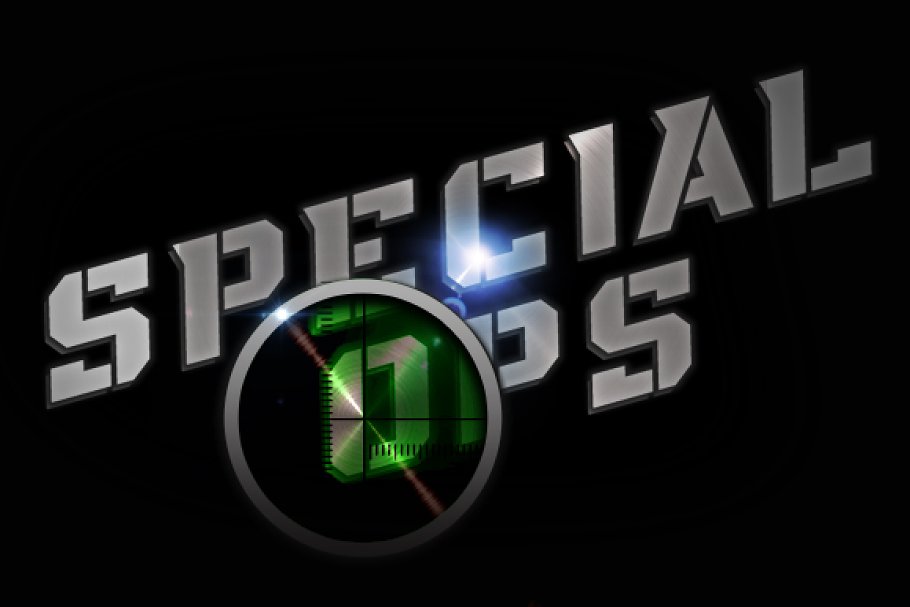
About the Sports Special Forces Ops Font
This font combo powerful, fast, and tactical, , , perfect for more aggressive sports or military-inspired designs, The standard font is Special Forces, the stencil version is Special Ops, This font had been used by the NBA, Bleacher Report, Florida Panthers, Houston Cougars, and the Nashville Predators to name a few!Available in TTF and OTF formats